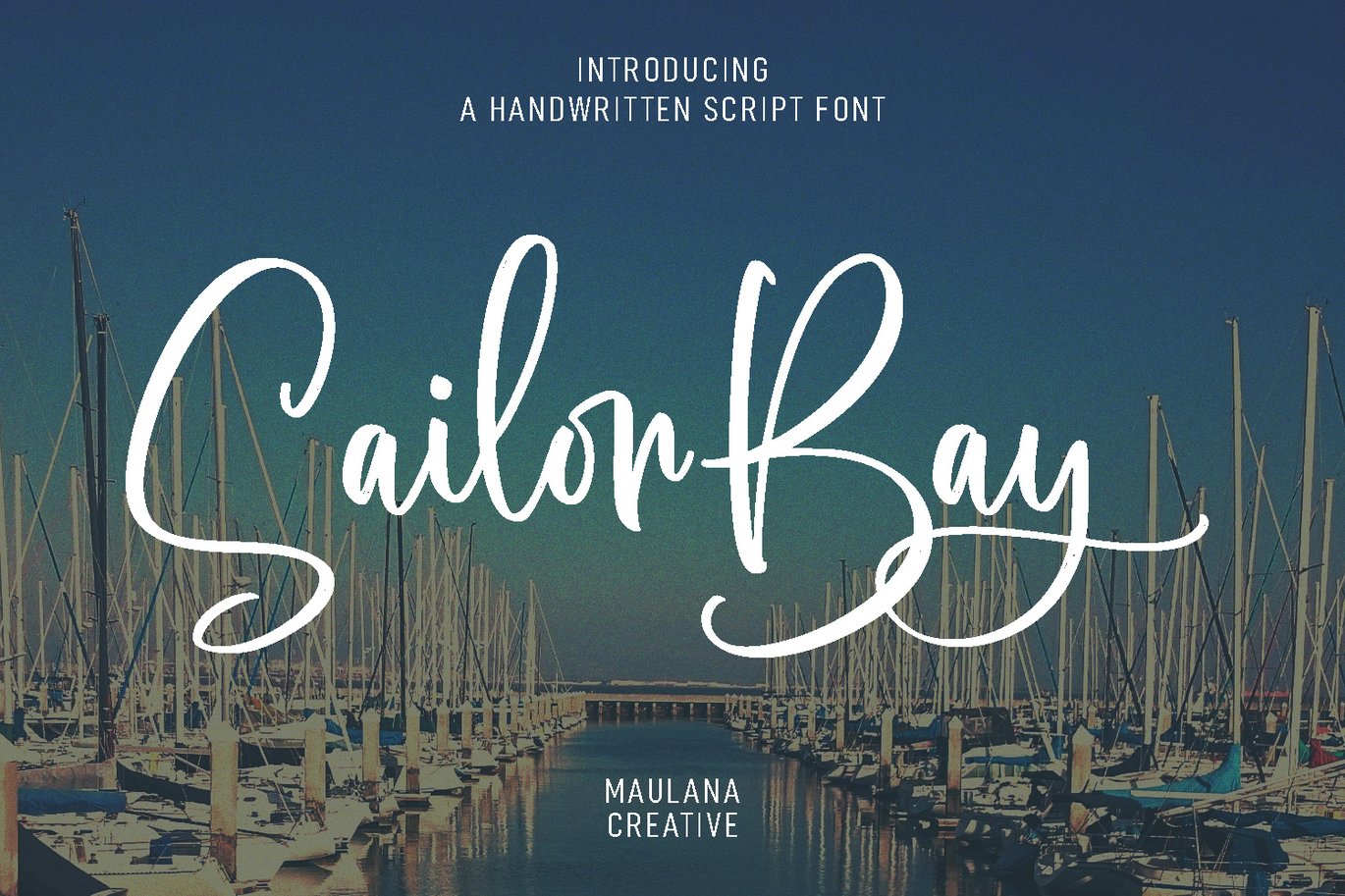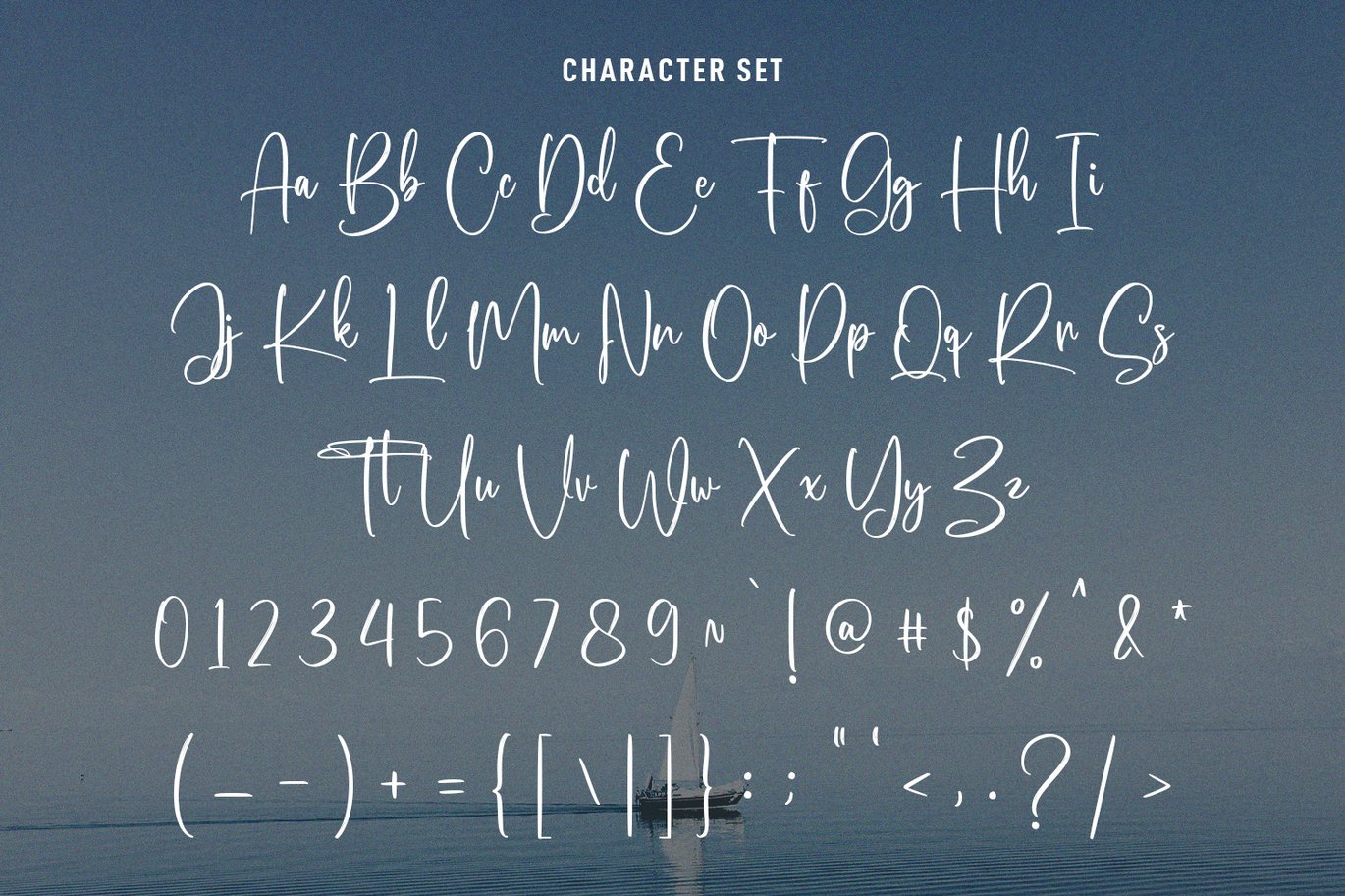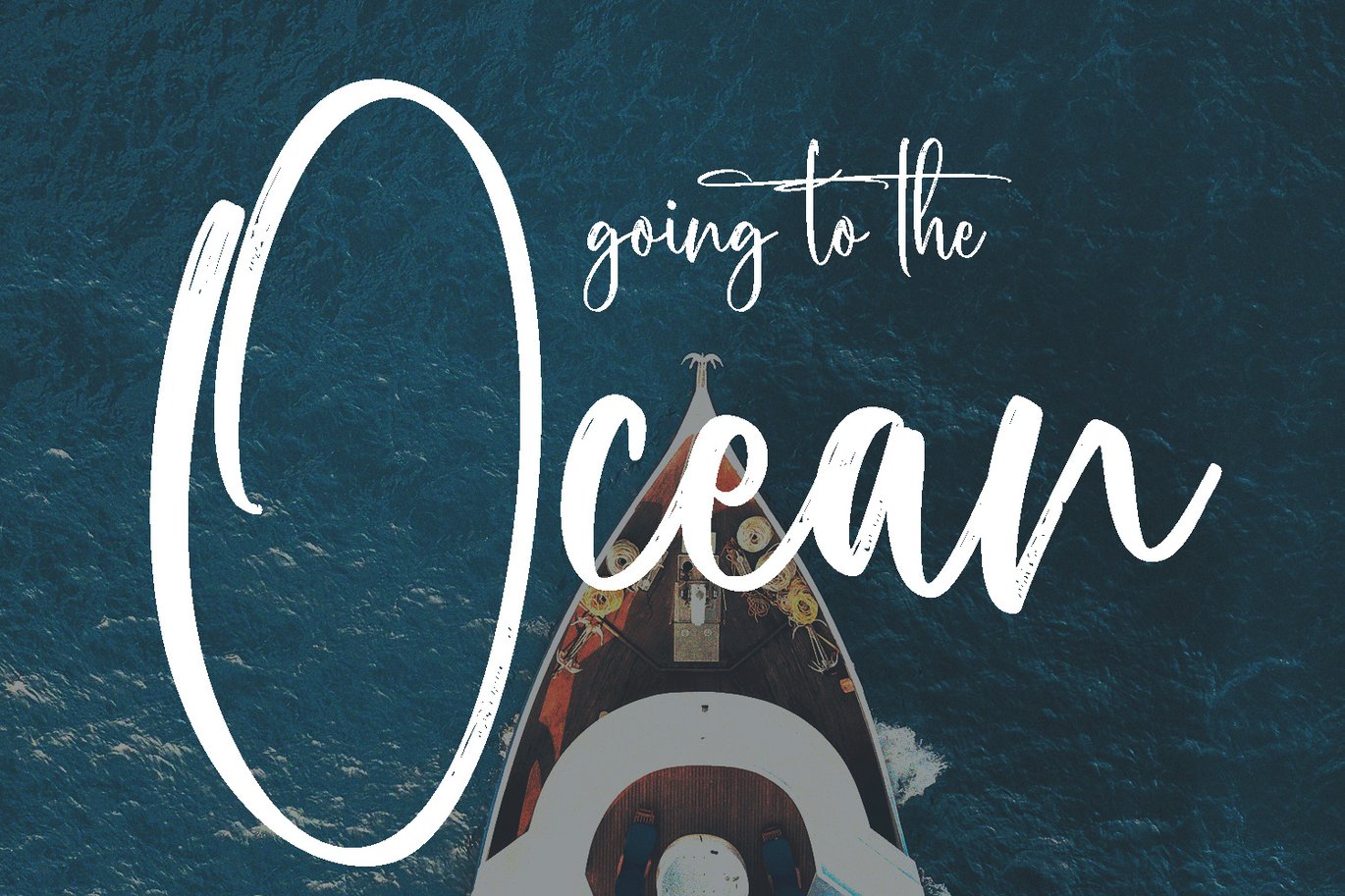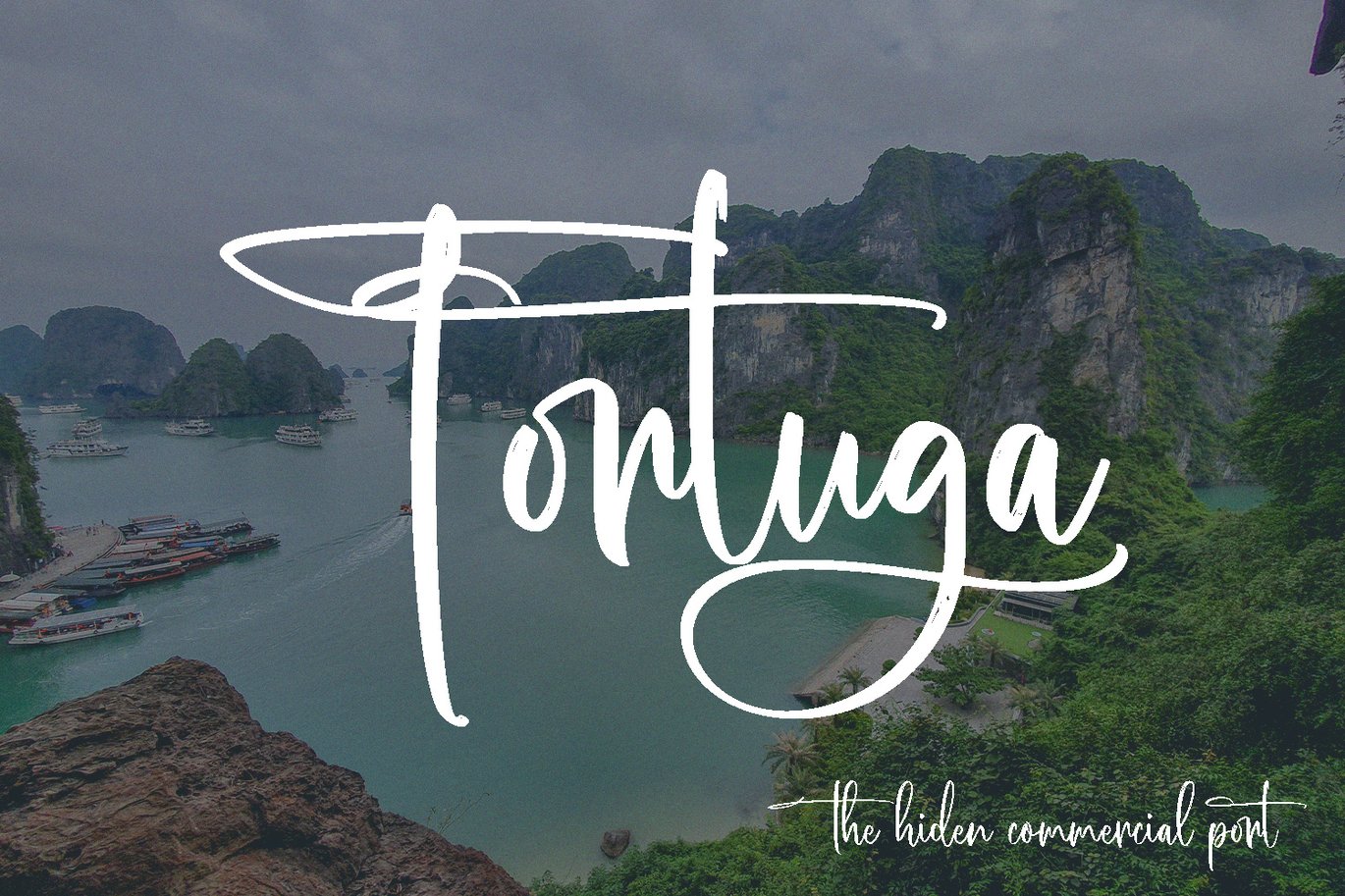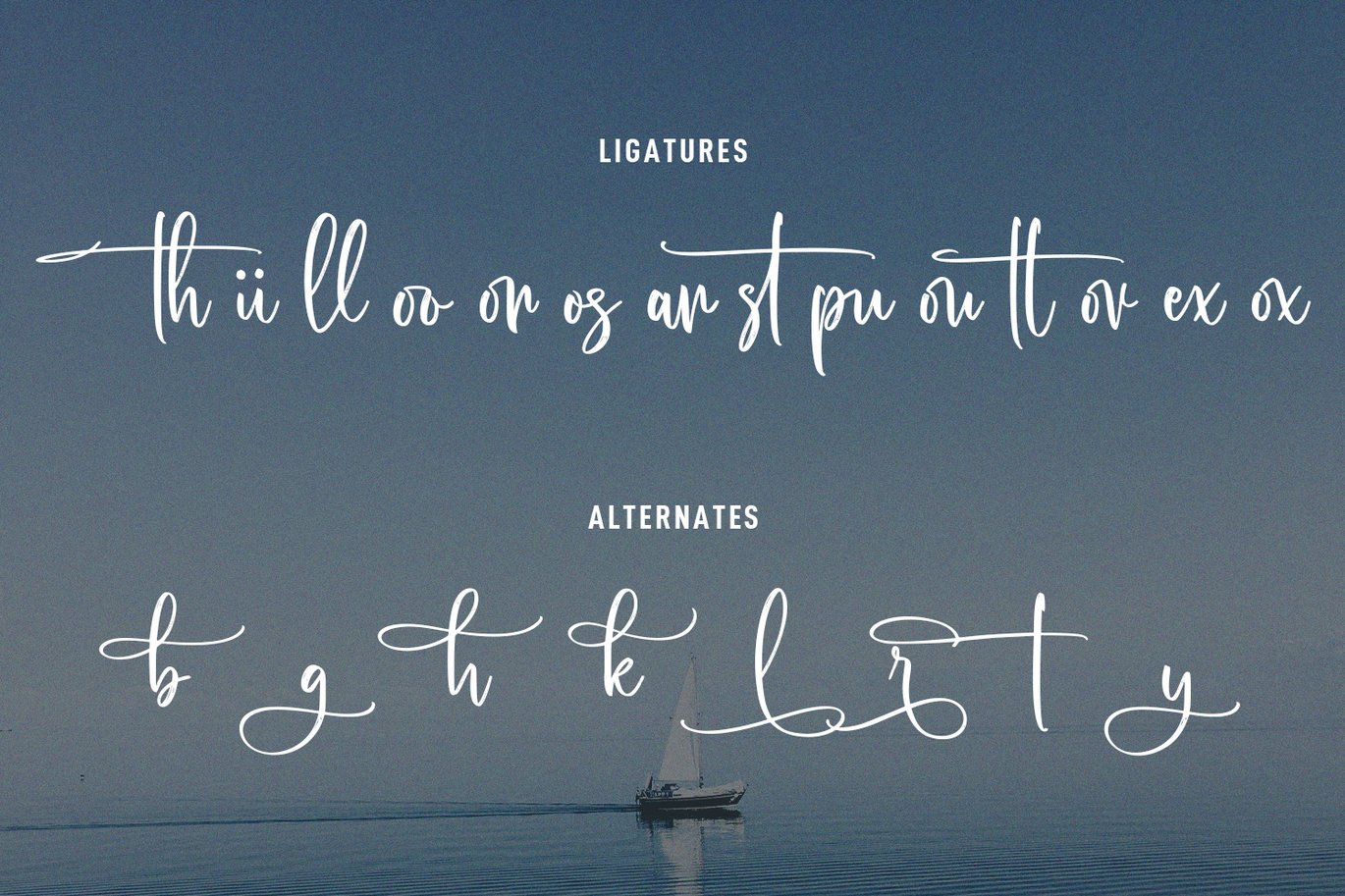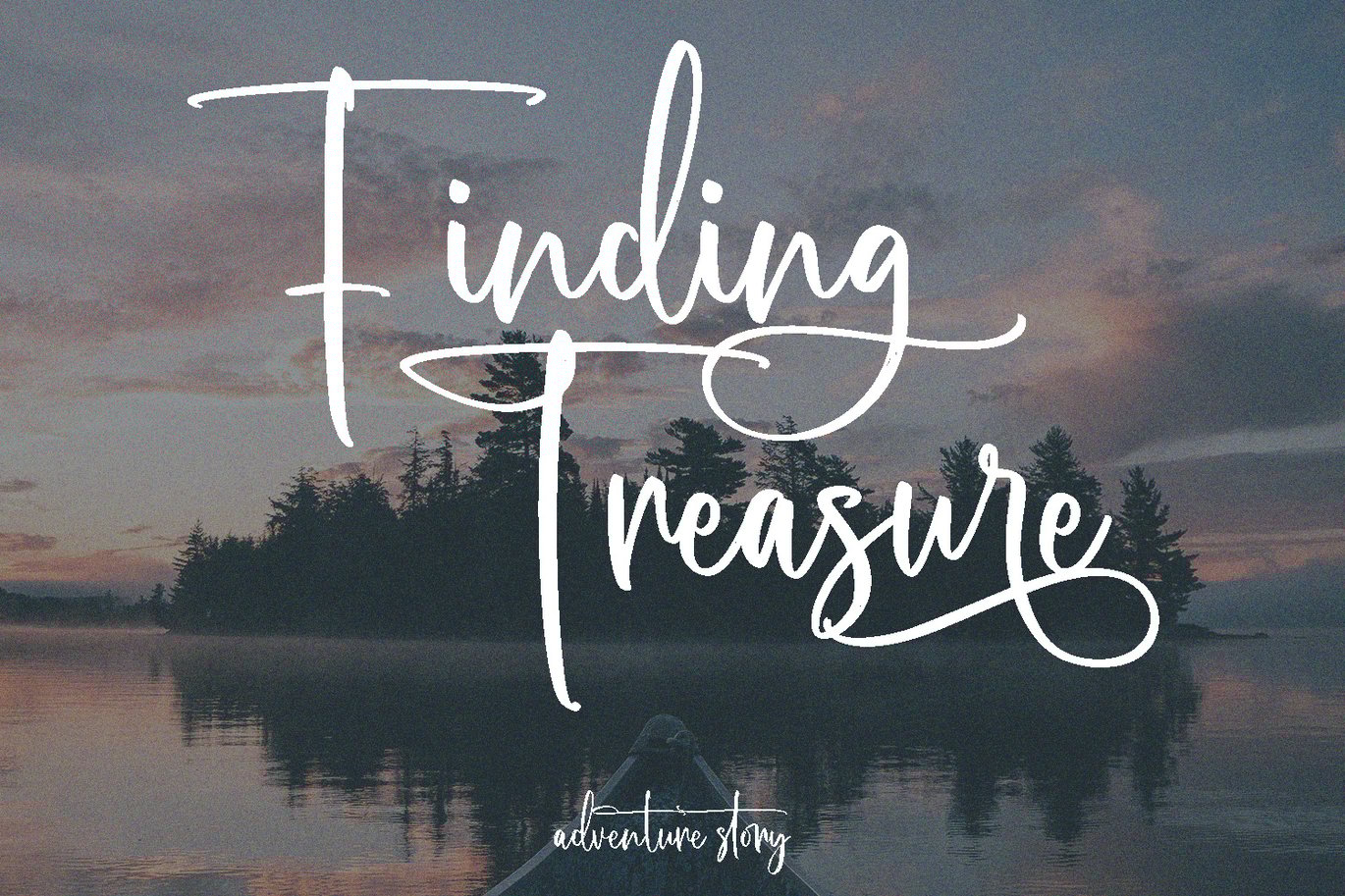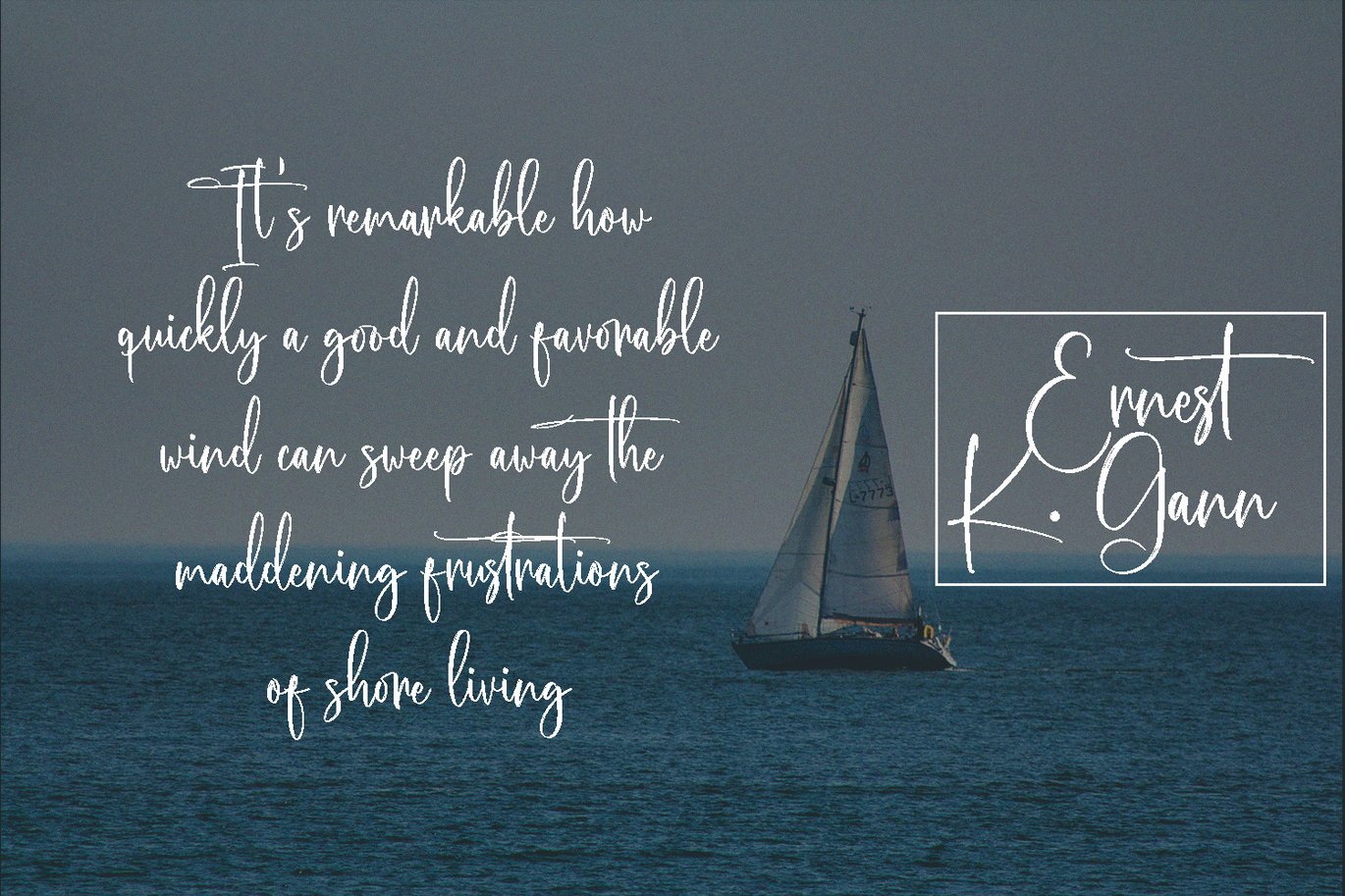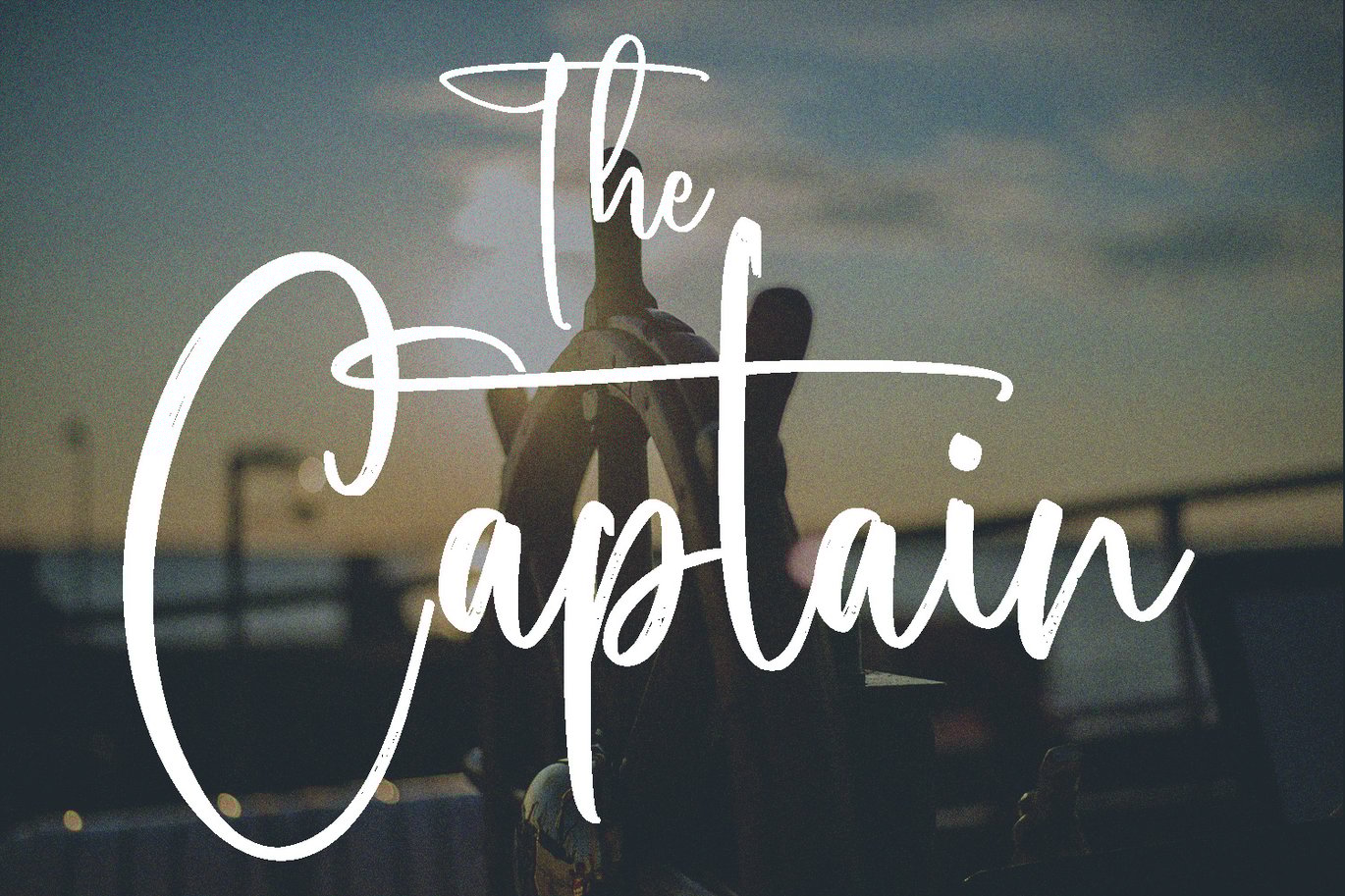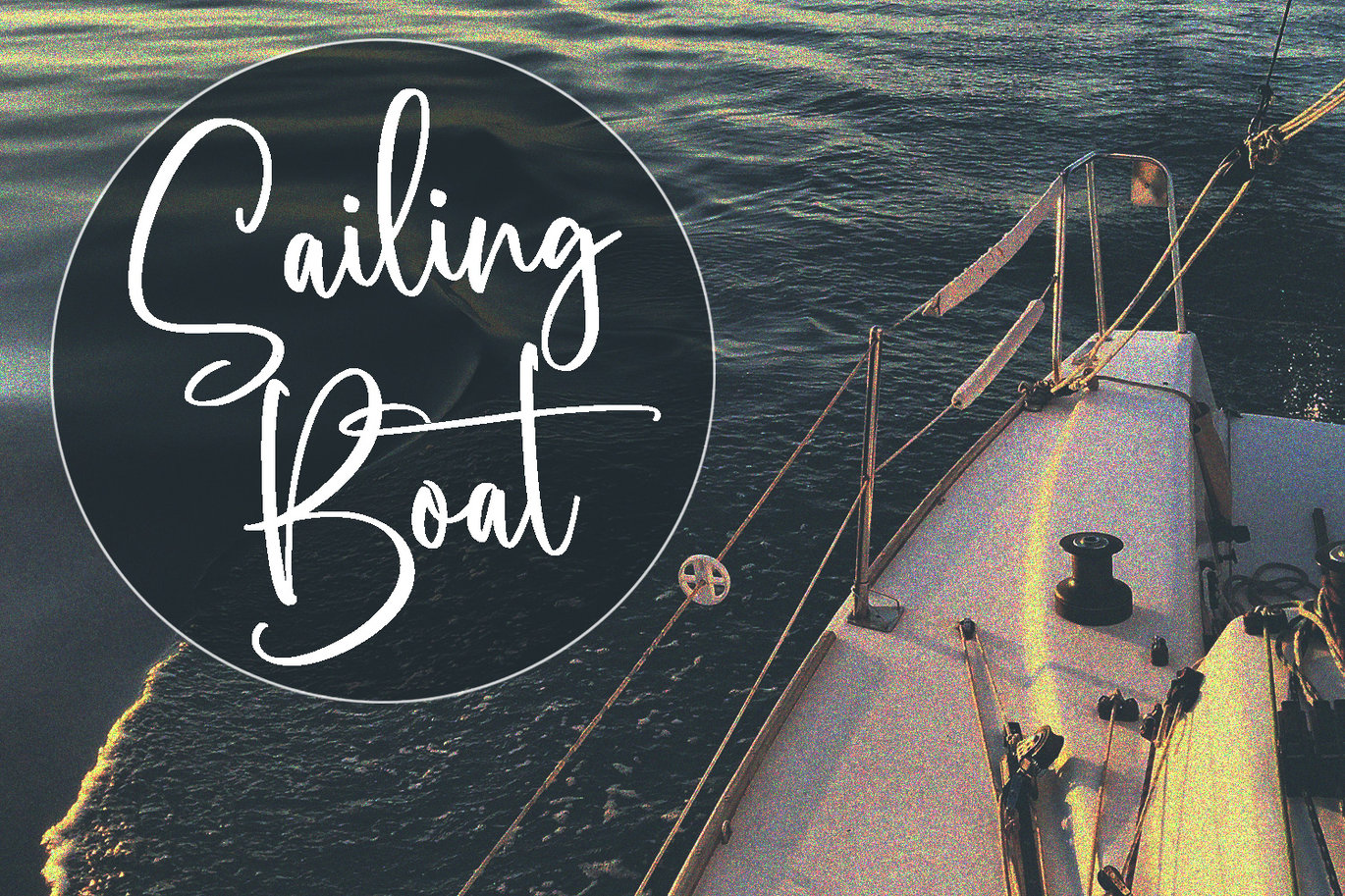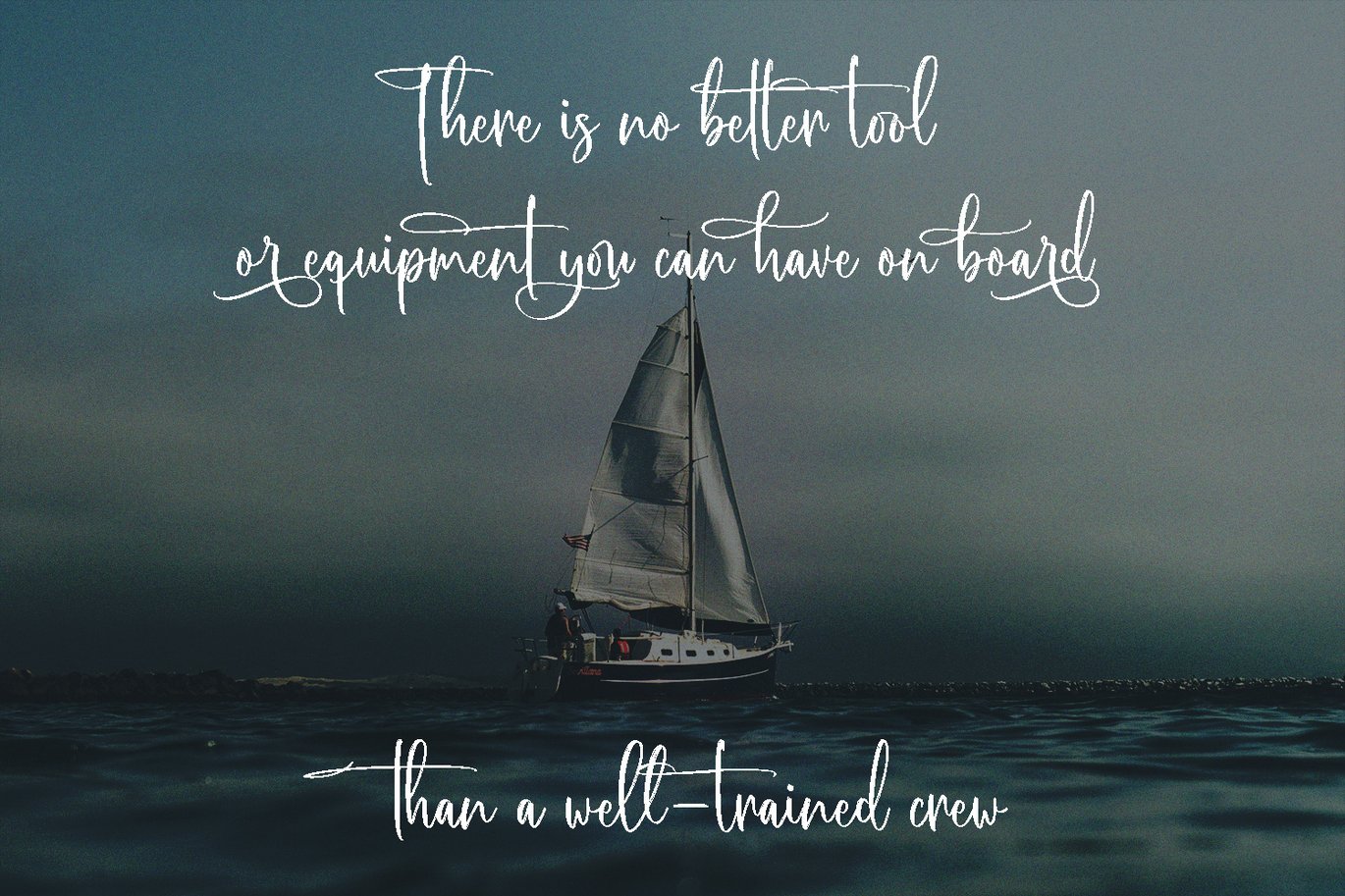
Sailor Bay Brush Script Font
Sailor Bay is a fancy brush script font. With regular brush contrast stroke, fun character with a bit of ligatures and alternates. To give you an extra creative work. Sailor Bay font support multilingual more than 100+ language. This font is good for logo design, Social media, Movie Titles, Books Titles, a short text even a long text letter and good for your secondary text font with sans or serif. Make a stunning work with Sailor Bay font.